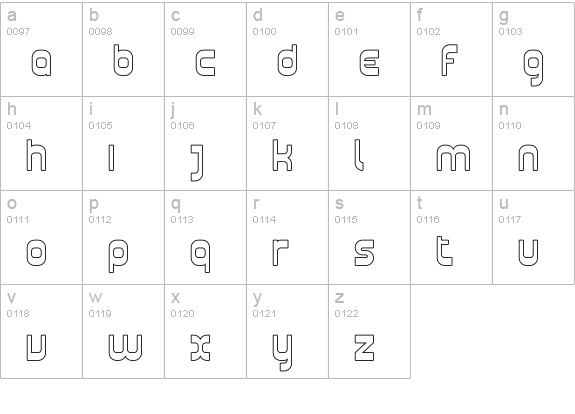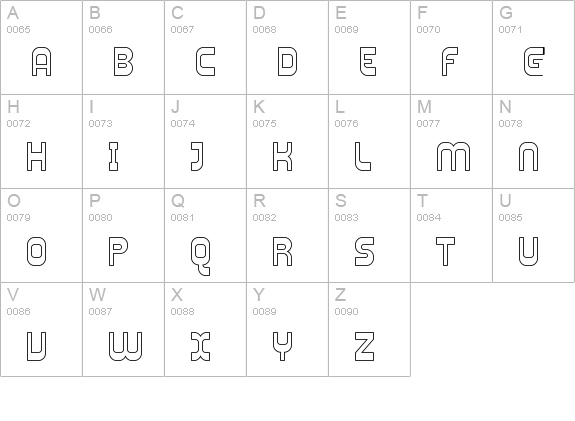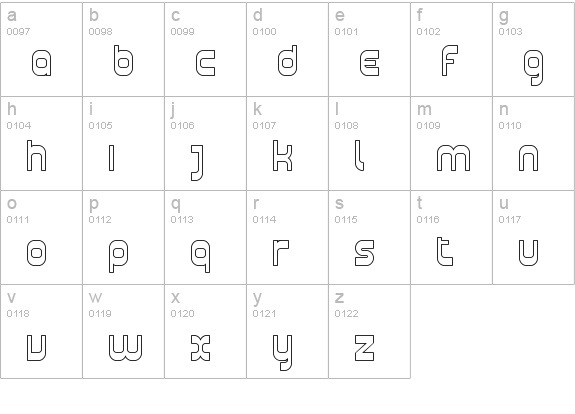
Plasmatica Outline Font Details
Plasmatica Outline font is a stunning display font that will add a touch of modernity and creativity to any design project. With its unique and futuristic design, this font is perfect for headlines, logos, posters, and any other design that requires a bold and eye-catching look. What sets Plasmatica Outline font apart is its sleek and sharp outlines, giving each character a distinct and edgy appearance. The clean lines and geometric shapes make this font versatile and suitable for a wide range of design styles. Not only does Plasmatica Outline font offer a visually appealing aesthetic, but it also provides excellent legibility, ensuring that your message is clear and easy to read. Whether used in large or small sizes, this font will make a strong impact on any project. The best part? Plasmatica Outline font is completely free to download at FontsMarket.com. This means that you can unleash your creativity and incorporate this font into your designs without any cost. It's a fantastic opportunity to elevate your designs without breaking the bank. So, if you're looking to add a touch of modernity and sophistication to your design projects, look no further than Plasmatica Outline font. Download it for free at FontsMarket.com and let your creativity soar to new heights.